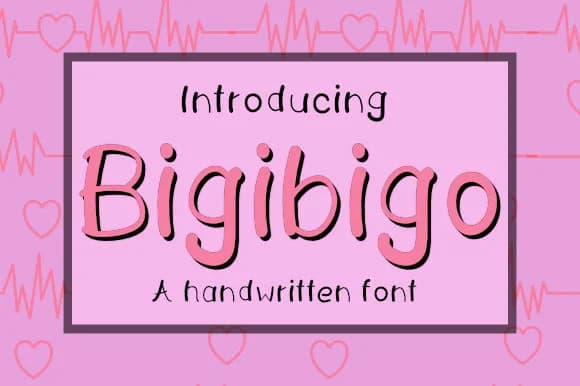
About Bigibigo Font
This script brings an inviting, approachable energy to whatever you're designing. Bigibigo, created by Plotterfreak, is a fully handwritten font that manages the tricky balance of personality and genuine readability. Each letterform flows with natural variation, the kind that genuinely feels like a friend's handwriting rather than a sterile digital simulation. The strokes breathe naturally, never stiff or overly geometric.
You'll find its warmth works beautifully across a wide range of projects and applications. Wedding invitation suites, greeting card designs, and gift tag sets all benefit from its organic character and genuine friendliness. Small-batch product labels shine with this font, especially for boutique skincare brands, artisan food packaging, or specialty cosmetics where that handcrafted feeling is core to the brand. DIY craft signage and scrapbook layouts also come alive with Bigibigo's human touch. From casual social media posts to premium packaging, it maintains its charm throughout.
For layouts that combine headlines and body copy, pair Bigibigo with a geometric sans-serif to create visual balance. The contrast grounds the overall design while letting the handwritten warmth take center stage on your key headlines and focal points. This pairing works for web headers, packaging, and printed materials alike. Grab it from Creative Fabrica and start adding that genuine handwritten character to your work.
Bigibigo Font is a script font that shines as a display or heading face. Pair it with a clean sans-serif or serif font for body text β the contrast creates a clear hierarchy while the two styles stay balanced and easy to read.